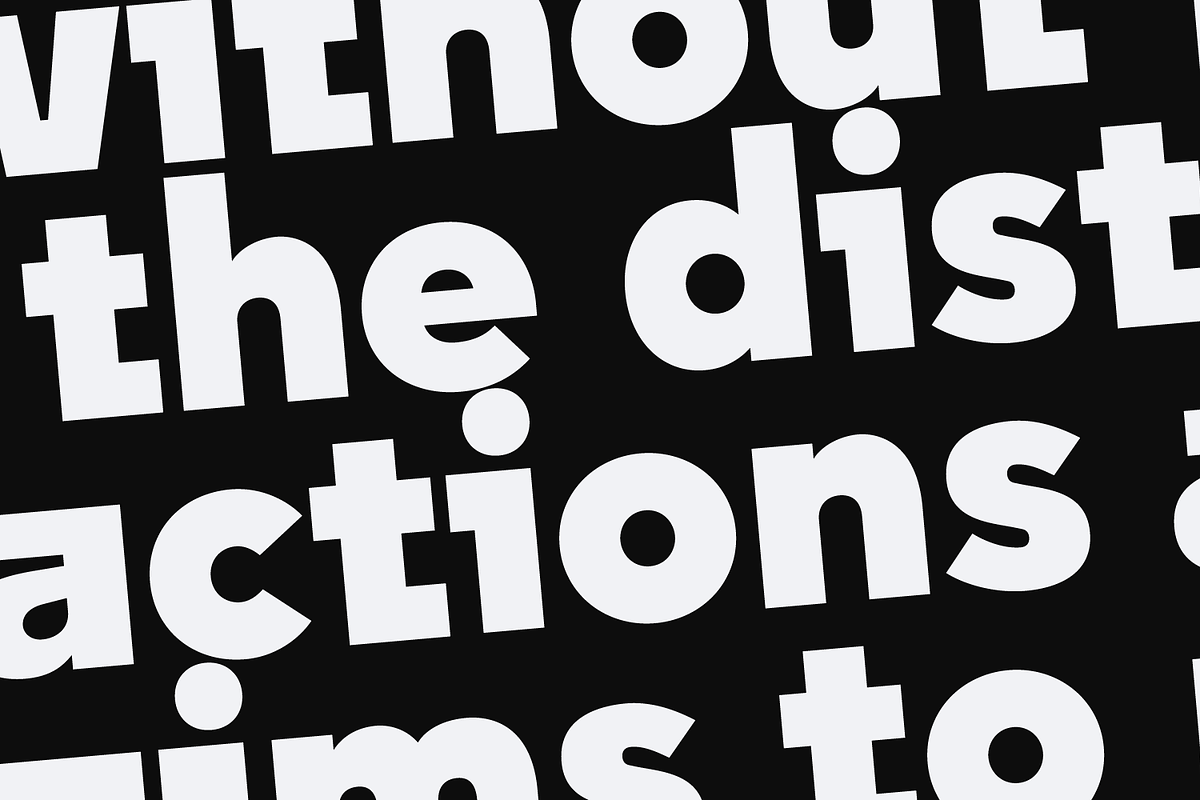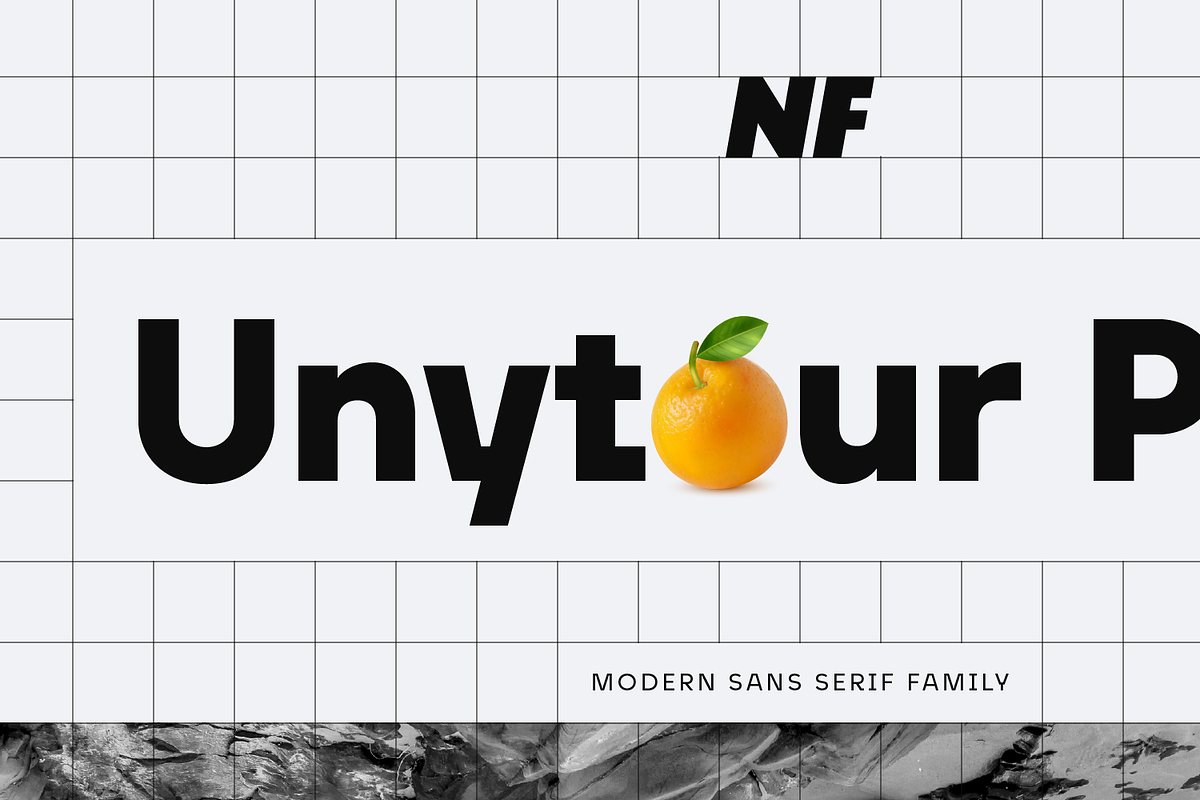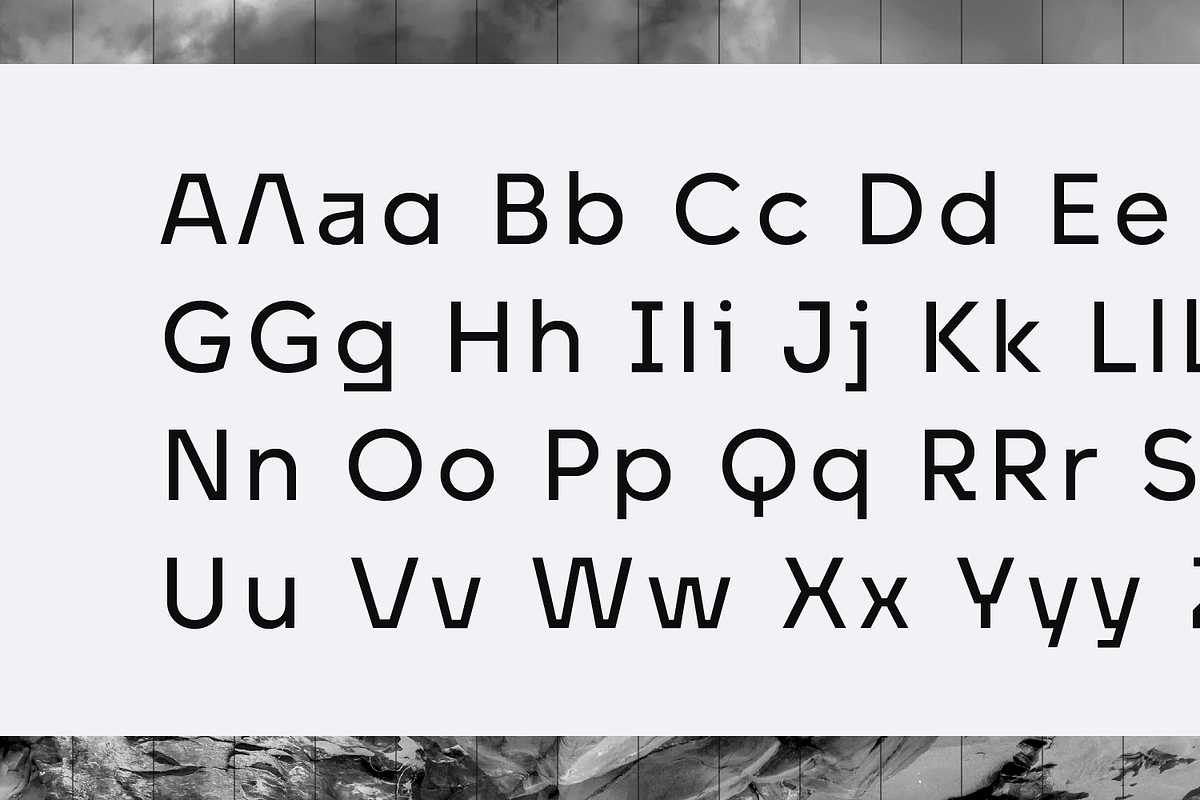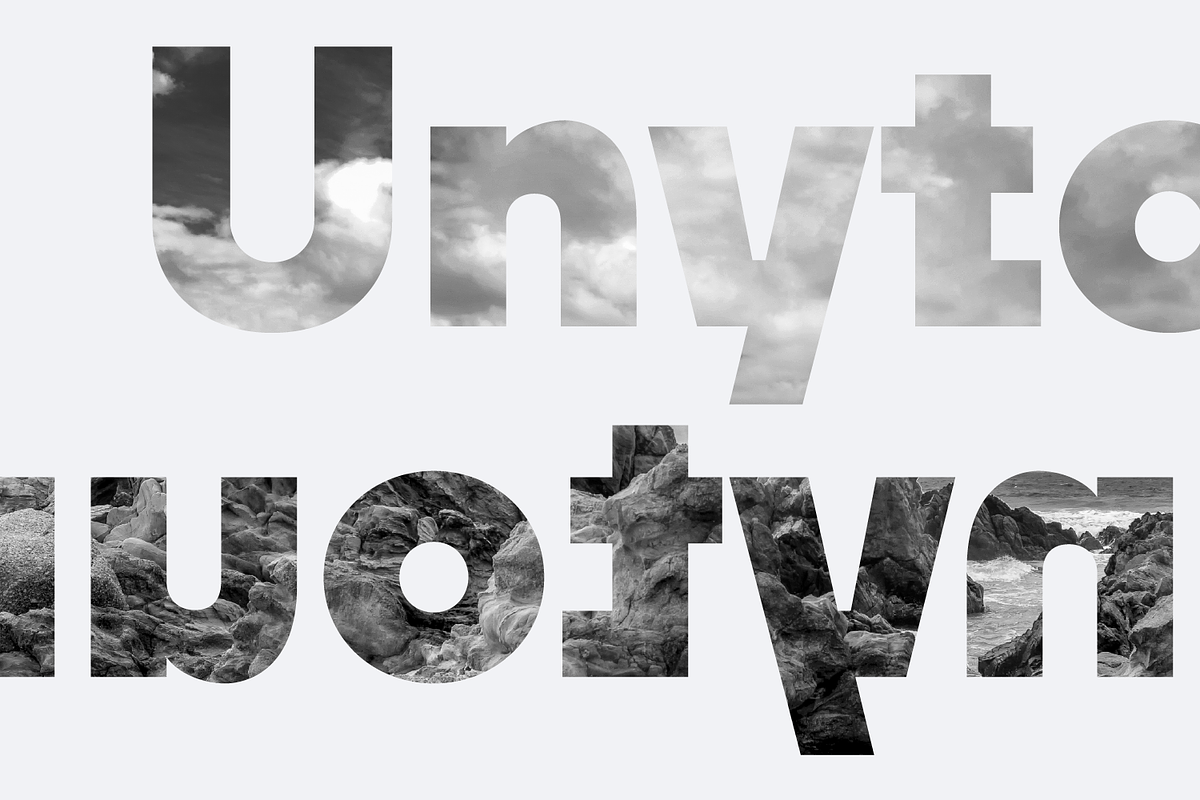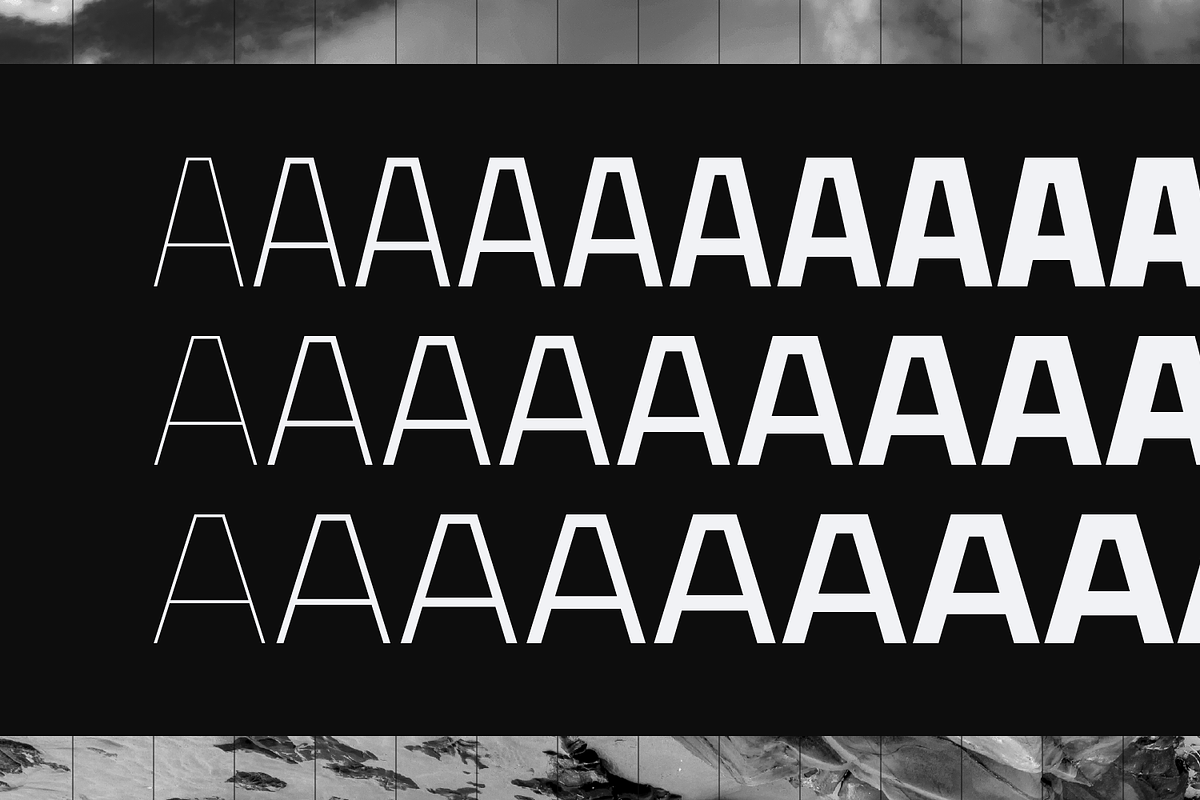
Unytour Pro
Unytour Pro is a modern sans-serif font family featuring 60 fonts. It includes 10 weights, from Thin to Heavy, with corresponding italics. Each weight offers 1,000 glyphs, alternative characters (A, G, I, R, a, l, t, y), and OpenType features. Unytour Pro is highly readable and ideal for logotypes, advertising, packaging, book covers, magazines, headings, corporate identities, and more.